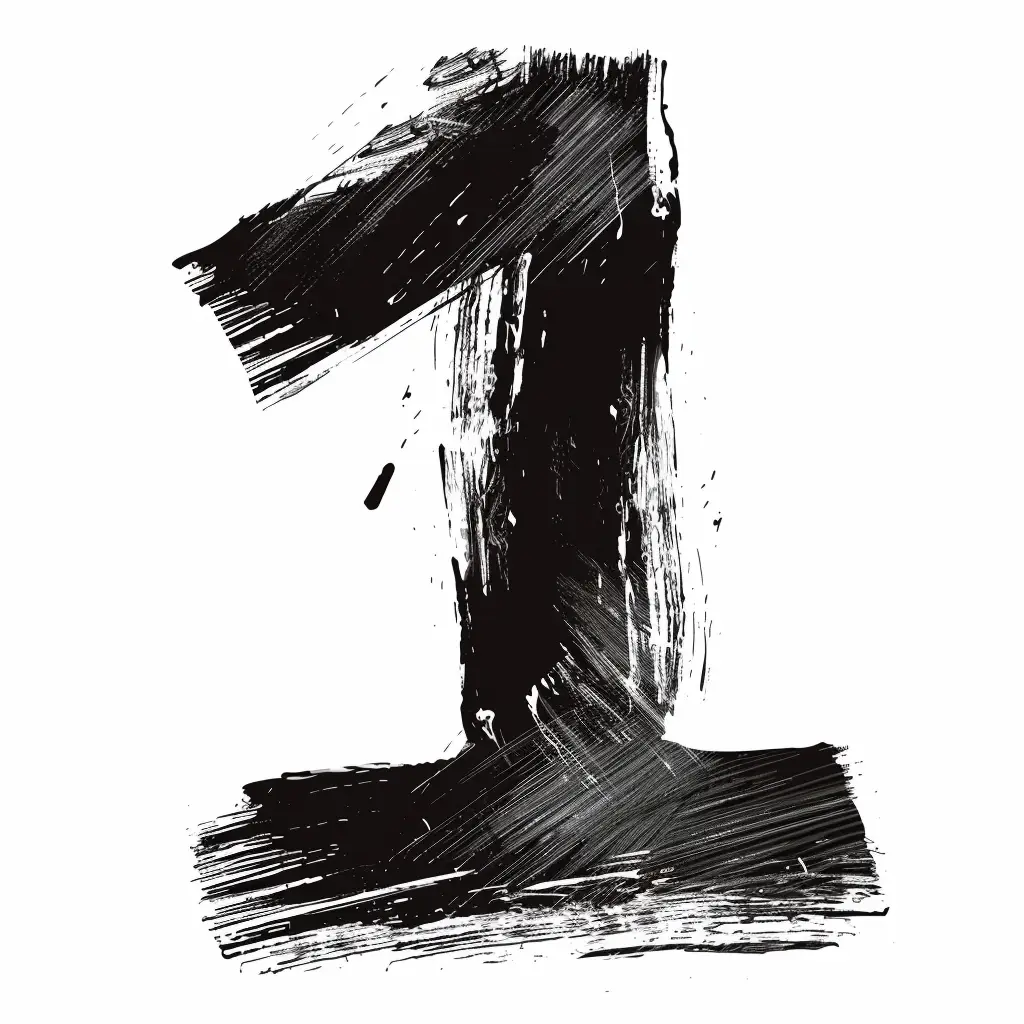
The image features a stylized, hand-painted representation of the number "1" rendered in bold black brushstrokes against a plain white background. The design employs a rough, textured, and expressive artistic style, with visible brush marks, uneven edges, and subtle splatters that convey a dynamic, handcrafted feel. The stark contrast between the deep black of the number and the clean white backdrop emphasizes the bold, graphic nature of the composition.